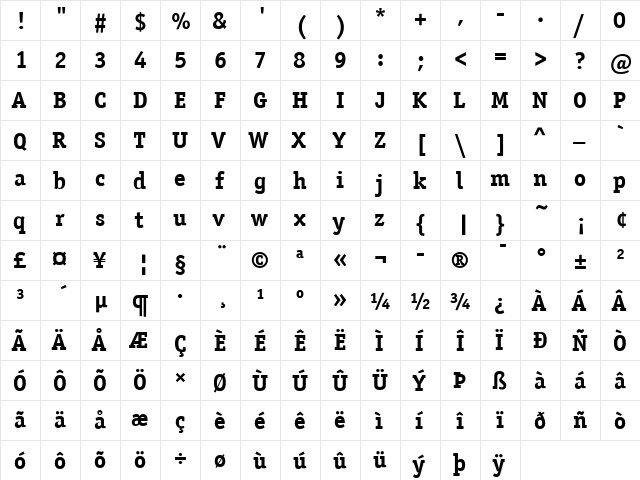
OfficinaSerITCBoo Bold Font Preview
OfficinaSerITCBoo Bold
Design Context for OfficinaSerITCBoo Typeface
OfficinaSerITCBoo takes a measured approach to typography — its balanced proportions and neutral character make it a reliable workhorse for both digital and print work. The heavy weight commands attention and anchors typographic hierarchies.